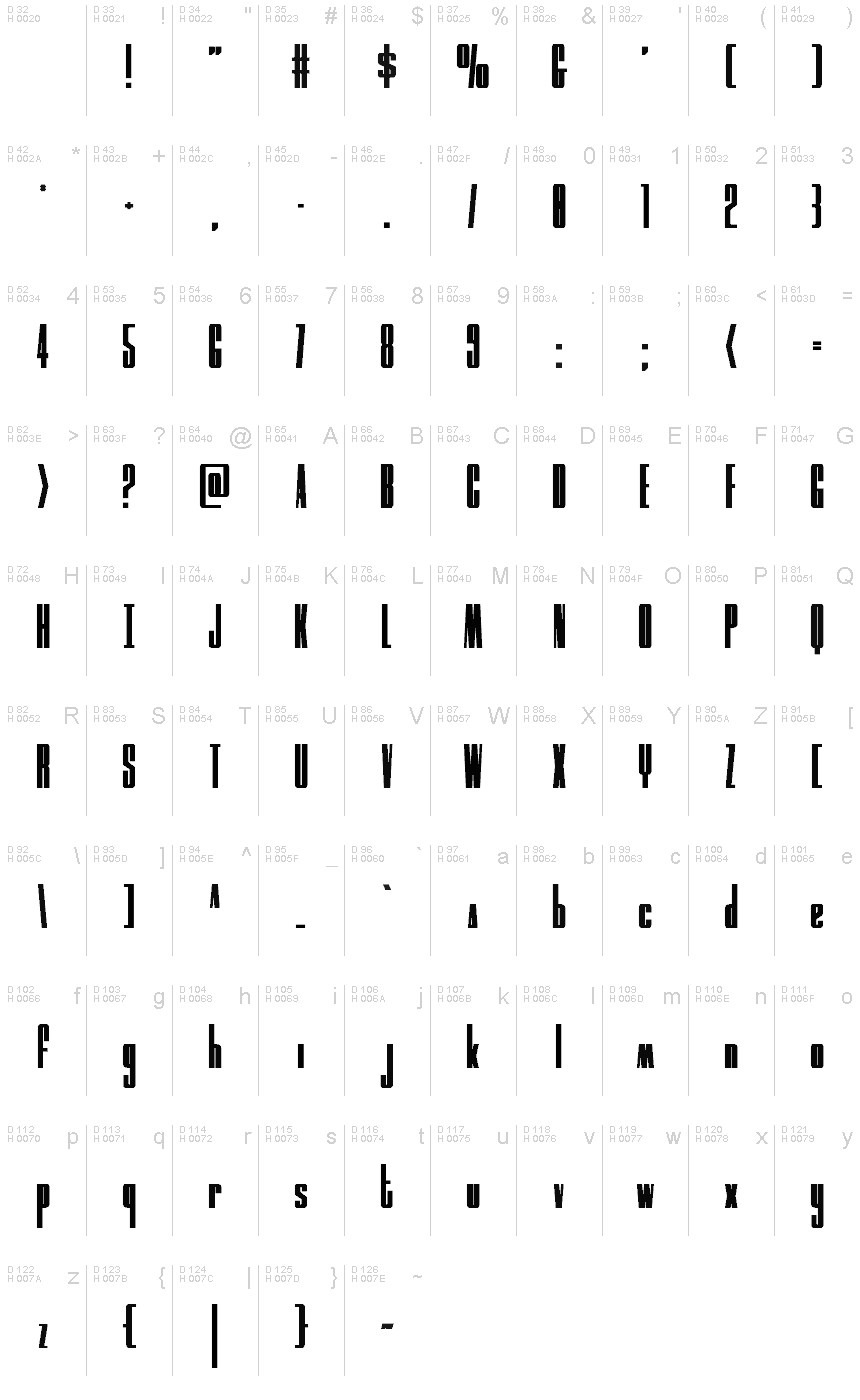
MOON Runner Condensed
Moon Runner Condensed, a captivating font from the Moon Runner family, designed by the renowned Daniel Zadorozny of Iconian Fonts, exudes a distinct futuristic allure. This condensed variation boasts a striking, angular aesthetic that immediately commands attention. Its sleek, streamlined letterforms evoke a sense of technological sophistication and avant-garde elegance, making it a compelling choice for a wide range of design applications.
The Moon Runner Condensed font's compact, yet impactful presence lends itself seamlessly to bold headings, attention-grabbing logos, and futuristic branding. Its condensed nature allows for efficient text composition, making it an excellent selection for product packaging, event posters, or any design where space is at a premium. This font's versatility shines through, seamlessly adapting to diverse design contexts, from cutting-edge digital interfaces to captivating print materials.